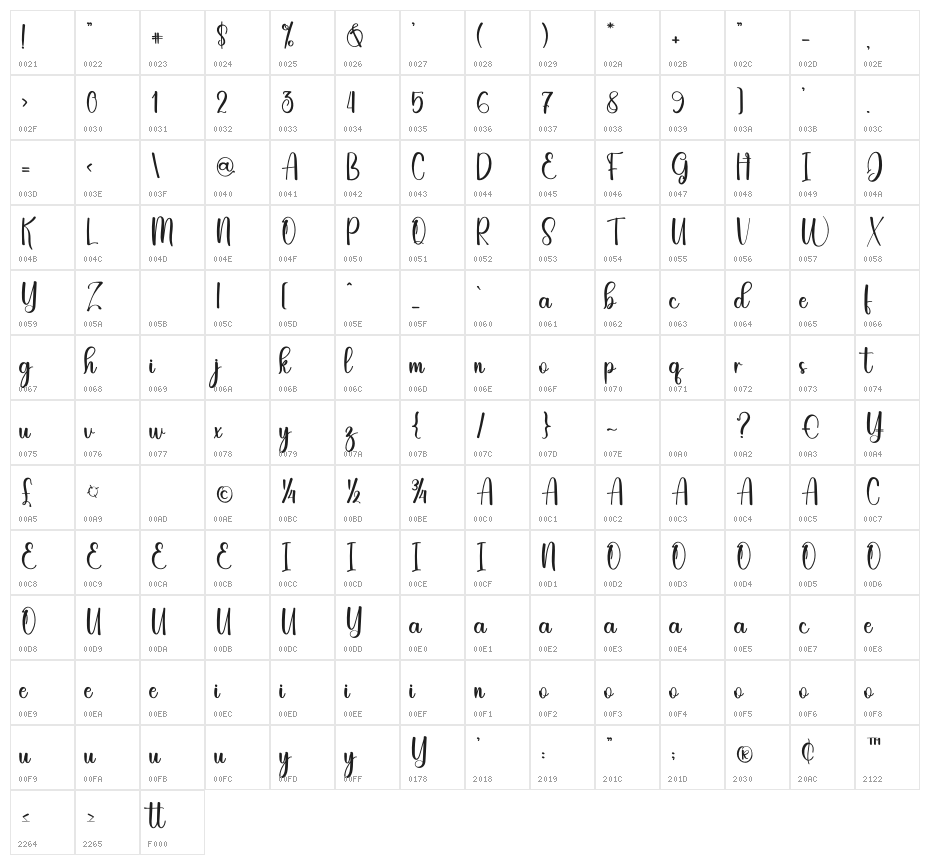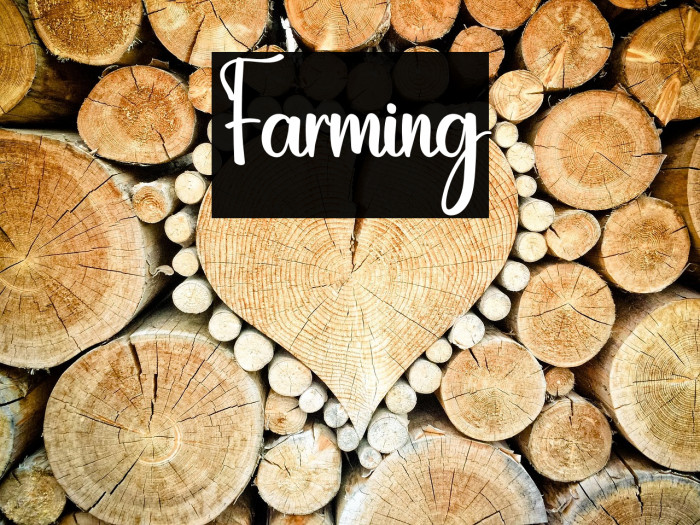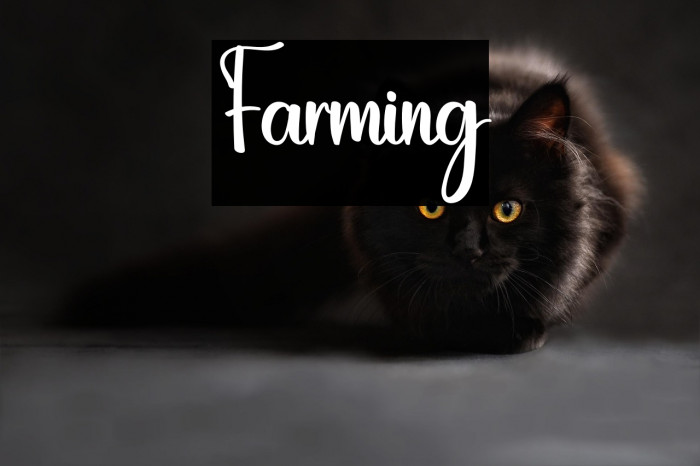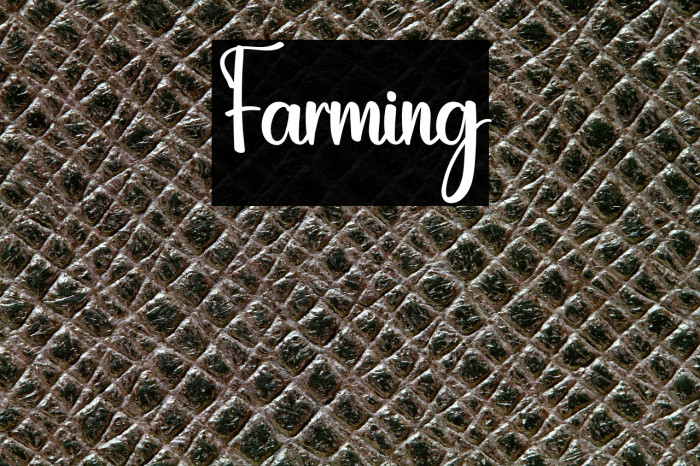
Farming Font
Farming Description
This font exudes a playful and whimsical charm, characterized by its flowing, handwritten style. The uppercase letters are tall and slender, with a slight slant that adds a dynamic feel. The lowercase letters maintain a consistent flow, with loops and curves that enhance its casual elegance. Numbers and special characters are crafted with the same attention to detail, ensuring a cohesive look across all text. The font's overall appearance is both approachable and stylish, making it suitable for a variety of creative applications.
| Use Case | Logos, Headlines, Invitations |
| Proposed Projects | Ideal for greeting cards, invitations, personal branding, and creative projects that require a touch of elegance and playfulness. |